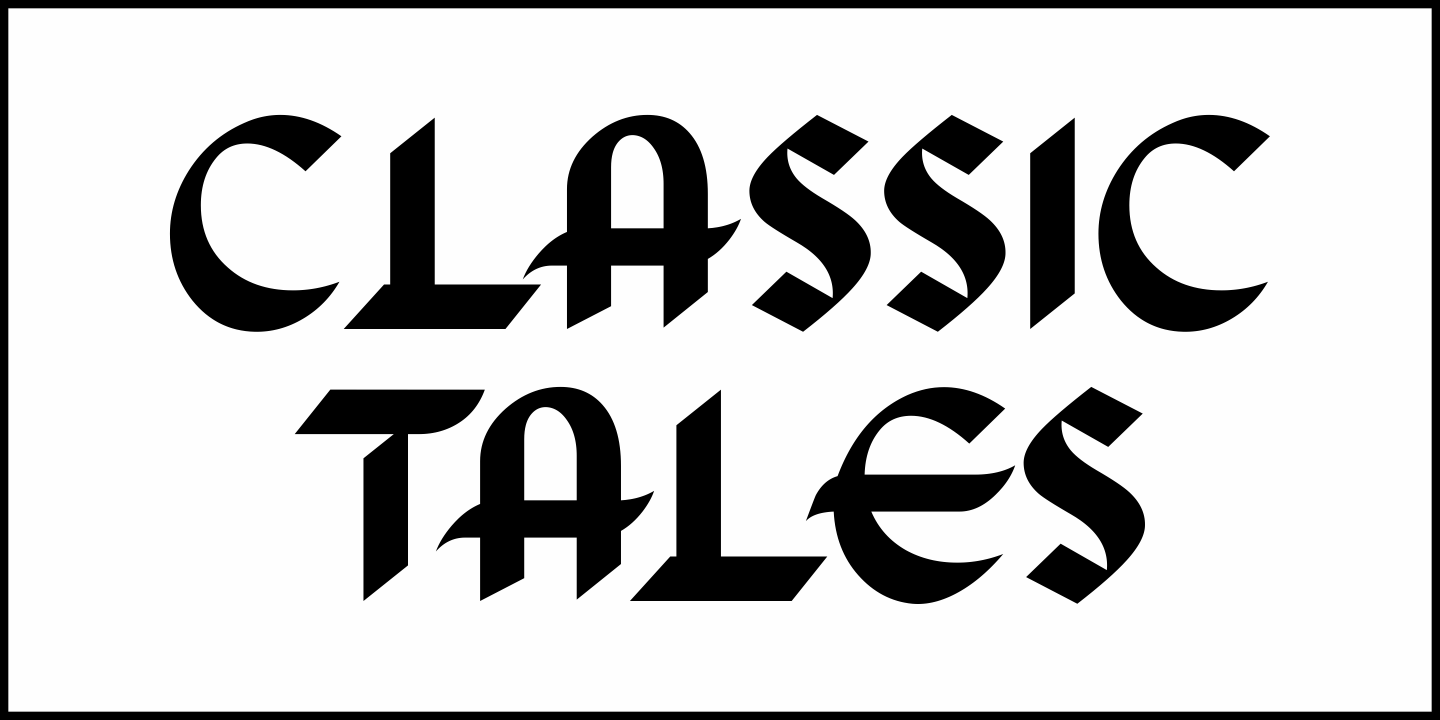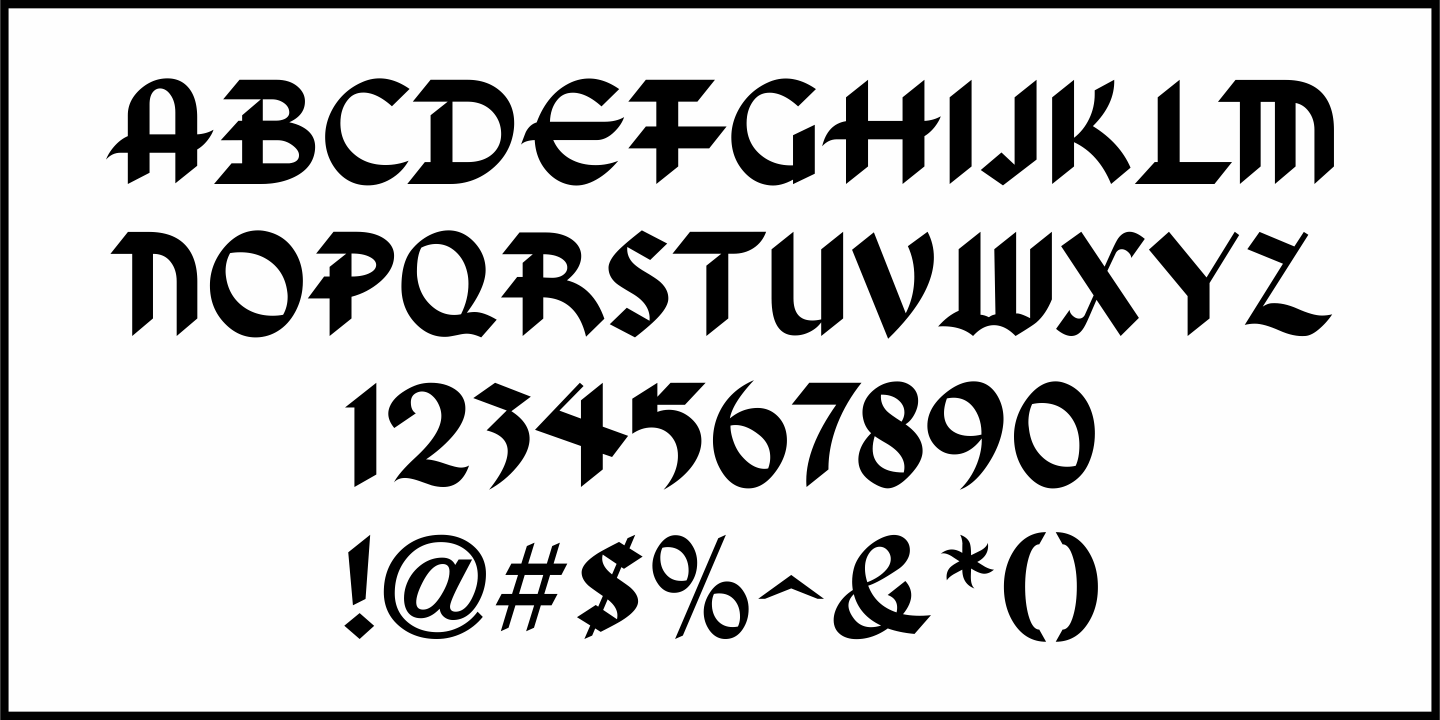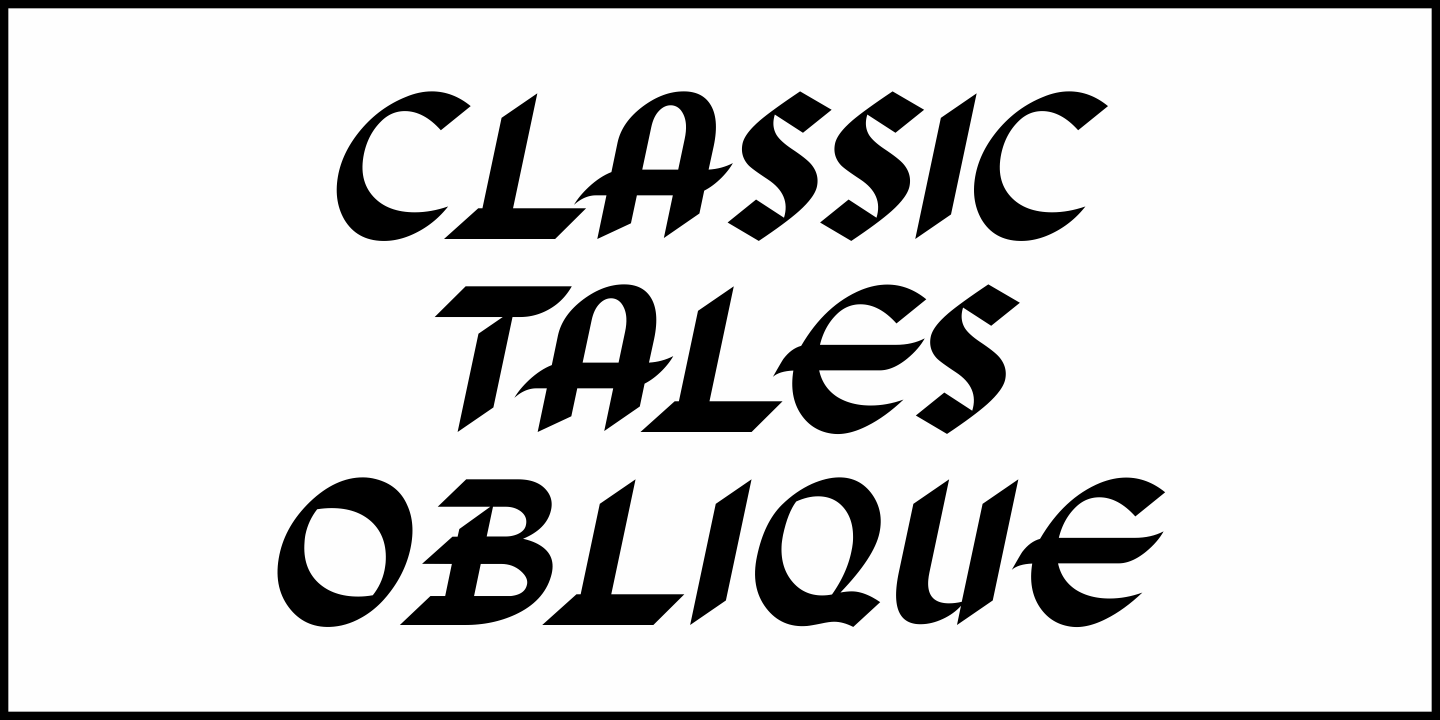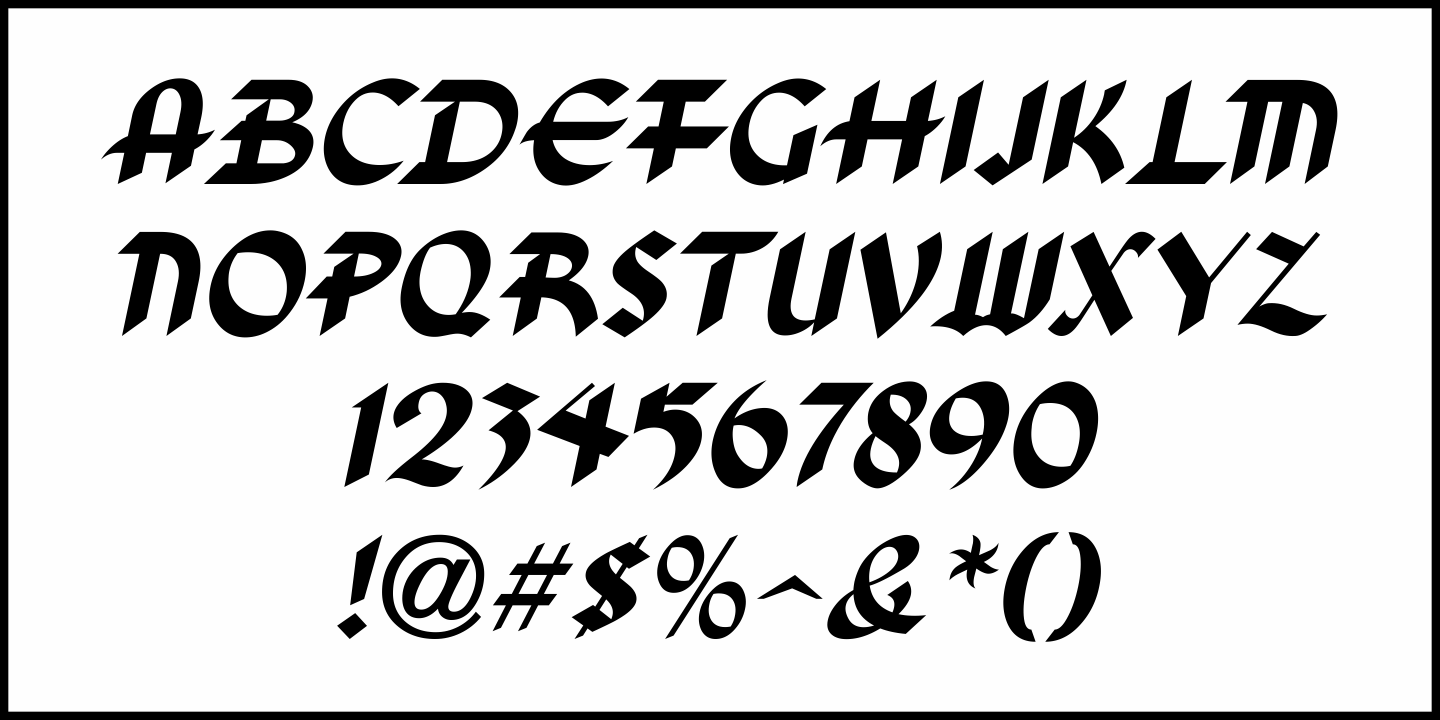
Classic Tales
In the 1954 book entitled "101 Alphabets" by Ben & Ed C. Hunt one finds a calligraphic style of sans serif lettering which draws on previous historic influences, yet retains a look that is fresh and unique.
This design is now available digitally as Classic Tales JNL in both regular and oblique versions.